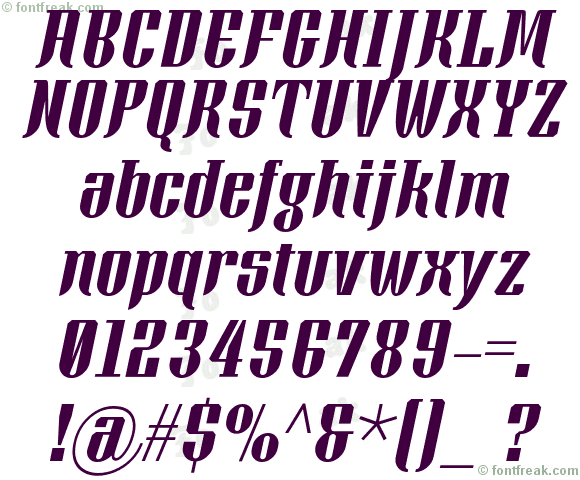
Xacose Italic
Xacose
Xacose Italic, designed by Situjuh Nazara in 2015, is a distinctive display font that exhibits a captivating blend of elegance and modernity. This italicized typeface features a unique serif style that adds a touch of sophistication to any design project. The strokes are characterized by a medium weight with a moderate contrast that enhances its readability while still maintaining an artistic flair. Spacing is thoughtfully executed, allowing for clear legibility even in larger blocks of text, making it suitable for various applications.
The decorative elements in Xacose Italic, such as its elongated serifs and stylish slants, create a dynamic appearance that is both eye-catching and versatile. This font is particularly well-suited for a variety of use cases, including wedding invitations where elegance is paramount, movie posters that require a bold statement, restaurant menus that seek to convey a unique dining experience, and branding materials for creative businesses looking to establish a distinctive identity.
What sets the Xacose Italic font apart is its ability to blend traditional serif characteristics with a modern italic style, making it a versatile choice for both print and digital media. Whether you're designing a chic event invitation or a compelling promotional flyer, this font makes a strong impression. Don’t miss the opportunity to enhance your design toolkit with the Xacose Italic font free download, a choice that guarantees both style and functionality.